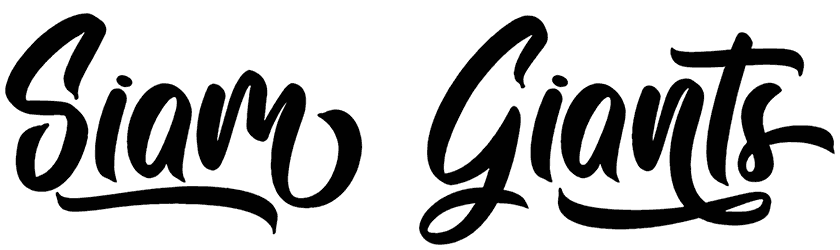
Siam Giants Font
The Siam Giants has a handwritten and old-school font style, which can be an excellent choice for many martial arts ads. This font allows you to use it in designing friendly themes such as birthday cards.